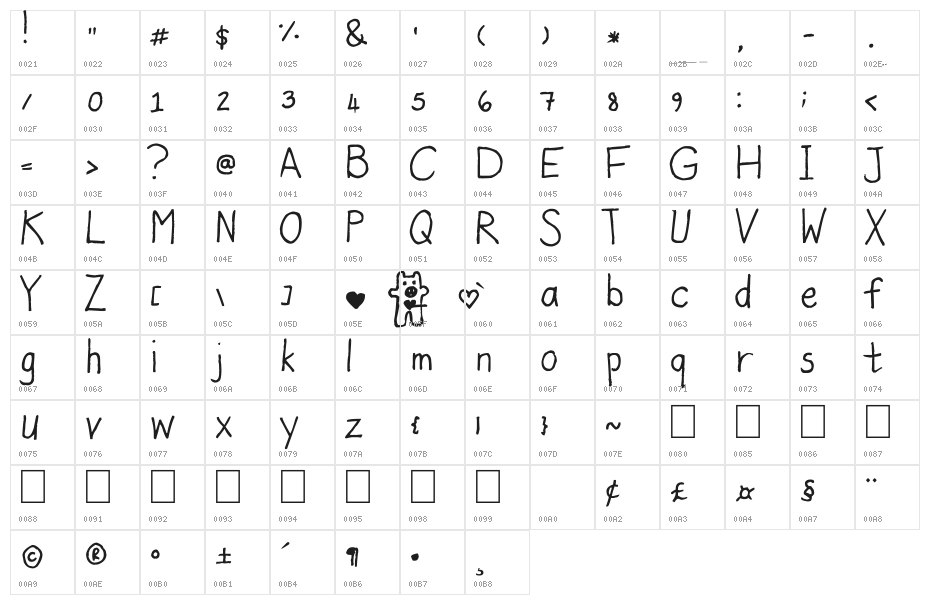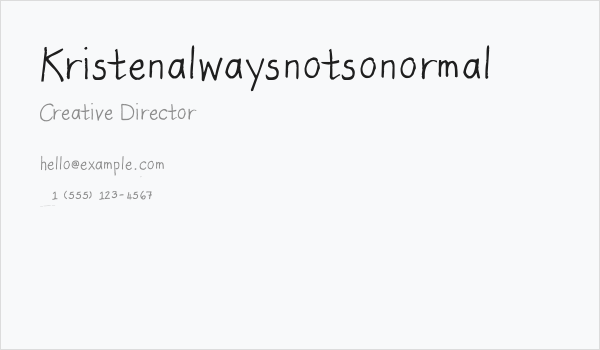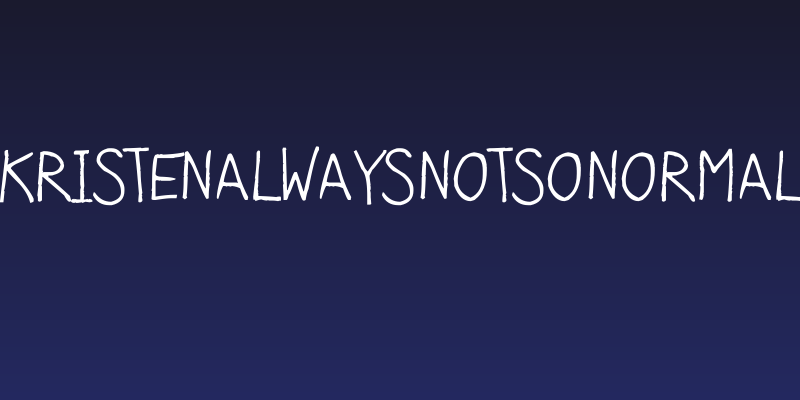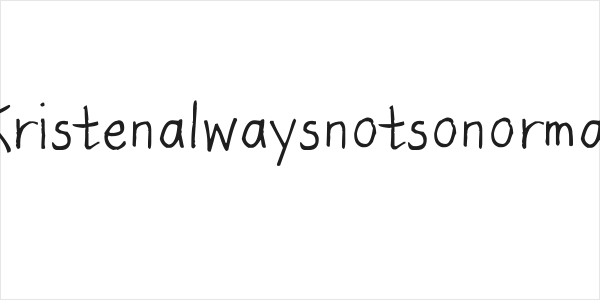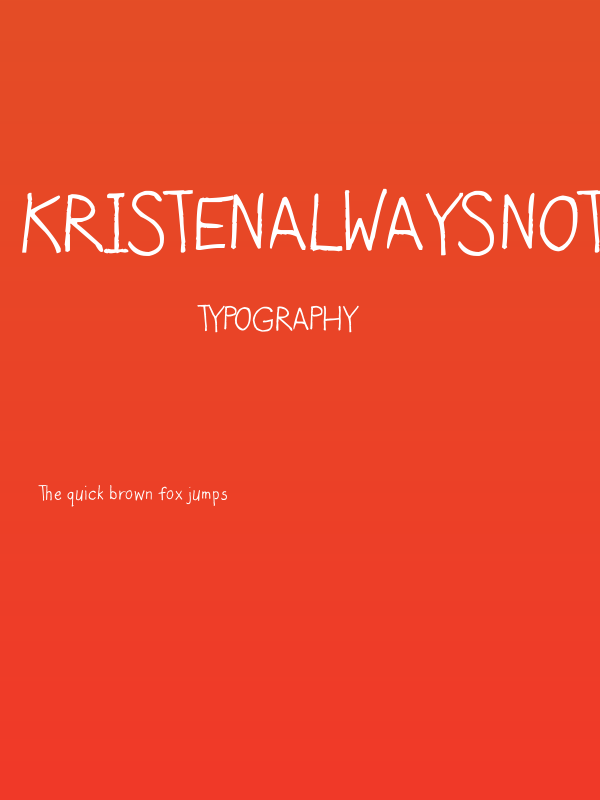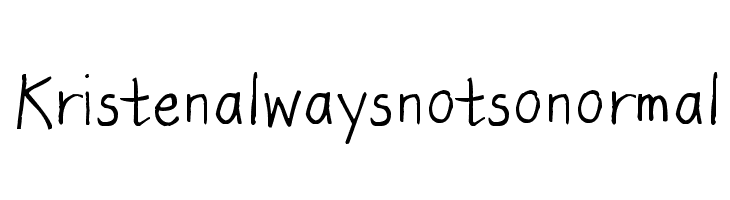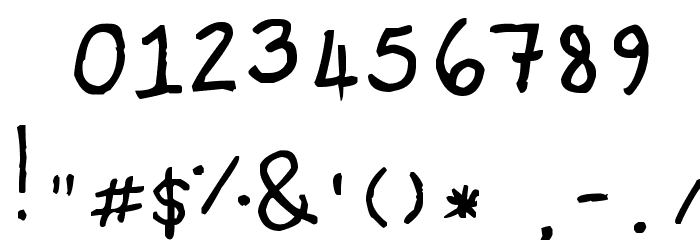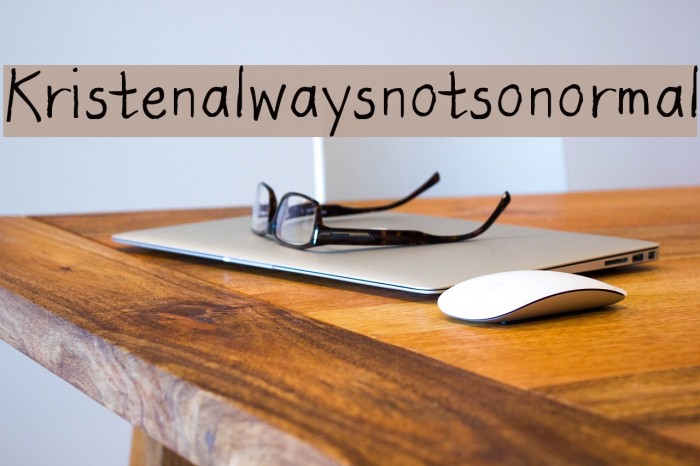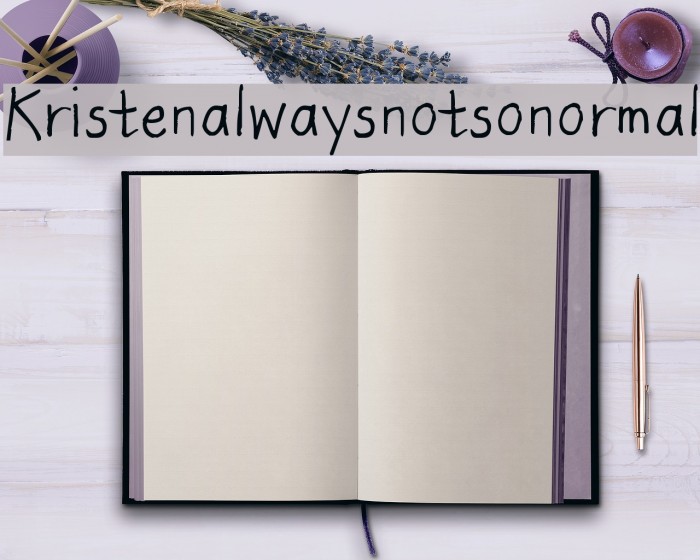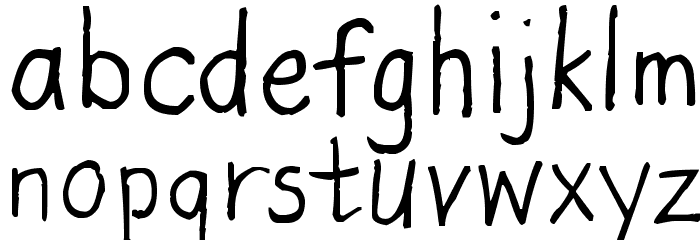
Kristenalwaysnotsonormal Font
Kristenalwaysnotsonormal Description
This font features a playful and informal handwritten style, characterized by its uneven lines and slightly irregular shapes. The letters have a casual, friendly appearance, with a mix of rounded and angular elements that give it a unique charm. The uppercase and lowercase letters maintain a consistent style, while the numerals and special characters complement the overall aesthetic. This font's organic feel makes it suitable for projects that require a personal touch or a sense of whimsy.
| Overall Style | Casual, Playful |
| Use Case | Headlines, Informal text, Creative projects |
| Proposed Projects | Ideal for greeting cards, children's books, personal blogs, and creative branding projects. |